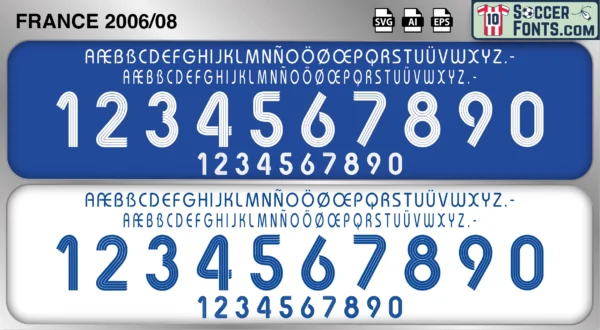
France 2006-08 Font
The France 2006-08 font is an editable soccer jersey lettering design in vector format inspired by the France kit style used during the 2006-08 football seasons. This football font artwork is prepared for football shirt recreations, custom jersey projects, football kit mockups and sports graphic design workflows.
The 2006-08 period followed France’s appearance in the 2006 FIFA World Cup Final and marked the beginning of a new chapter for the national team after the retirement of Zinedine Zidane. France entered a transition period while continuing to rely on experienced players such as Thierry Henry, Patrick Vieira, Lilian Thuram, Claude Makélélé and William Gallas. At the same time, younger talents began establishing themselves within the squad as France prepared for UEFA EURO 2008. The era represented an important bridge between the legendary generation that had dominated international football at the turn of the century and the next wave of French talent.
The France 2006-08 font became associated with the post-Zidane transition and the final international years of several iconic players. France shirts from this period remain popular among football shirt collectors because of their connection with the 2006 World Cup legacy and a squad filled with some of the most recognizable names in modern football history. The France 2006-08 font reflects a period of change, continuity and expectation as France sought to remain among the elite nations of international football while adapting to a new era.